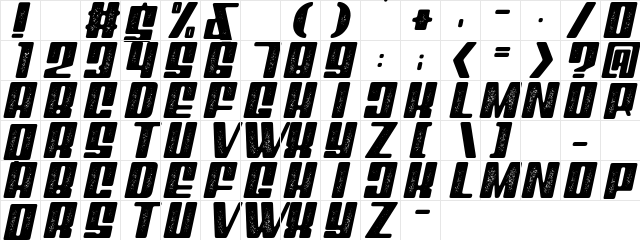
Mixbox Stamp Italic Demo Stamp Italic
Design Context for Mixbox Stamp Italic Demo Typeface
Mixbox Stamp Italic Demo borrows the utilitarian aesthetic of stencil lettering, with its characteristic cutaways and no-frills construction lending an industrial edge. The dynamic lean of this cut emphasises speed and emphasis in any layout.
Ideal for industrial branding, streetwear, military-adjacent aesthetics, and urban signage projects.
Pro Tip: Pair Mixbox Stamp Italic Demo with raw, utilitarian design elements — exposed concrete textures, flat colour, and minimal ornamentation suit it well.